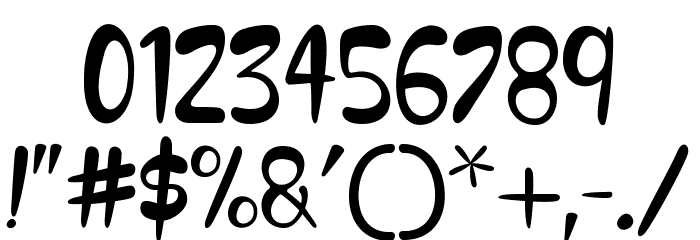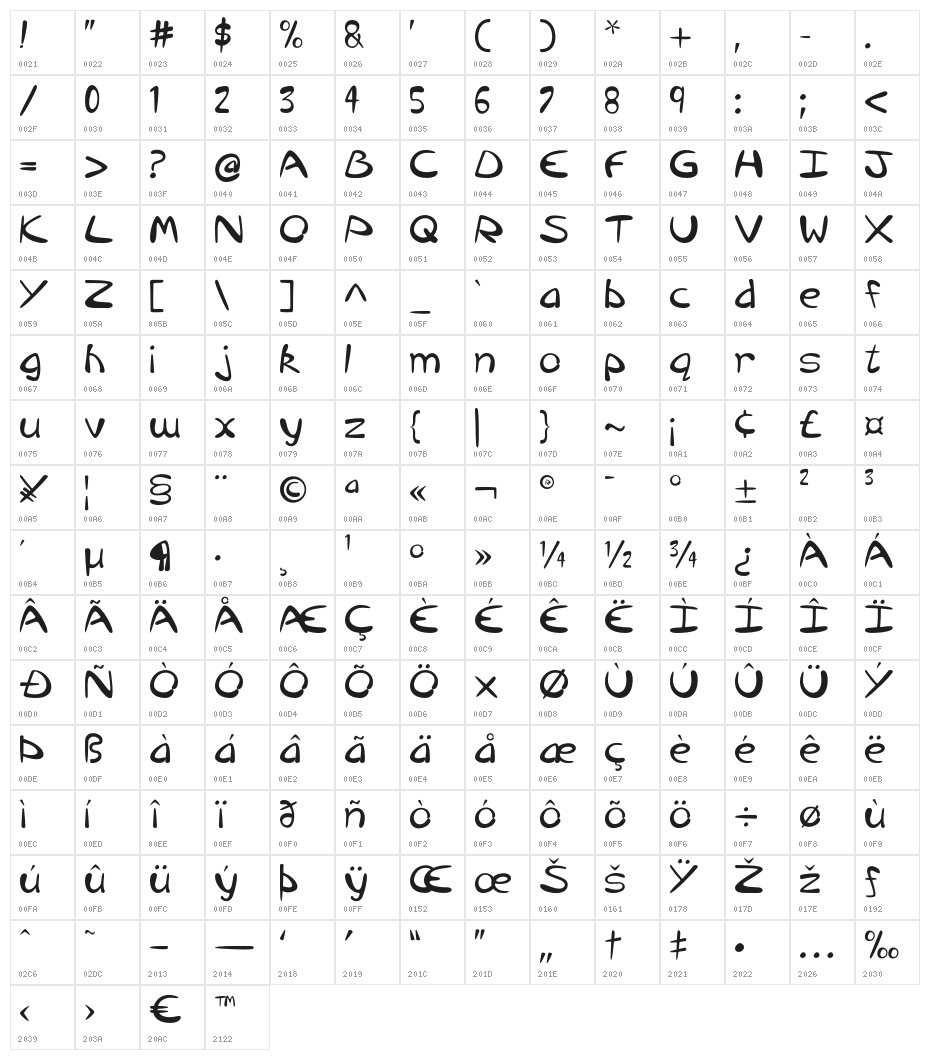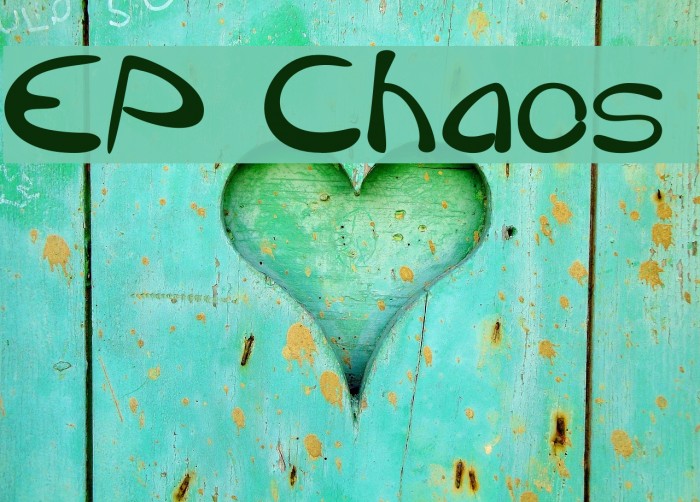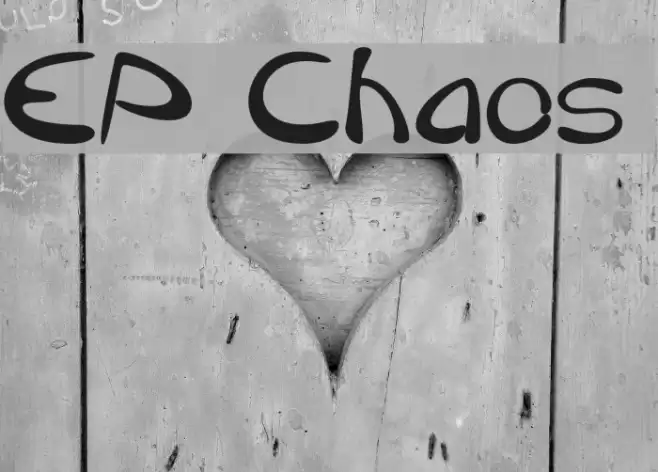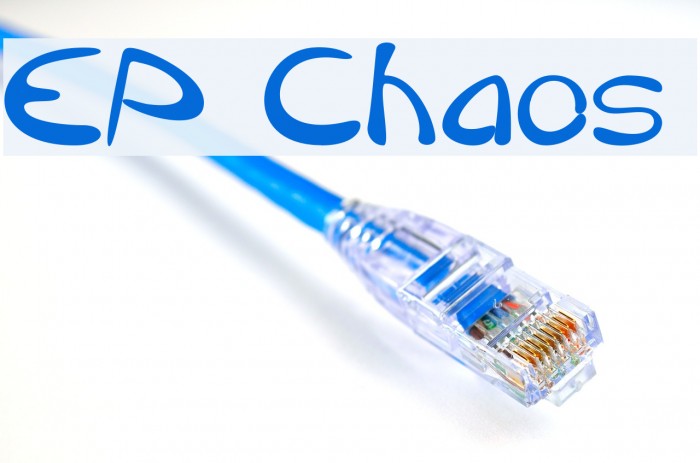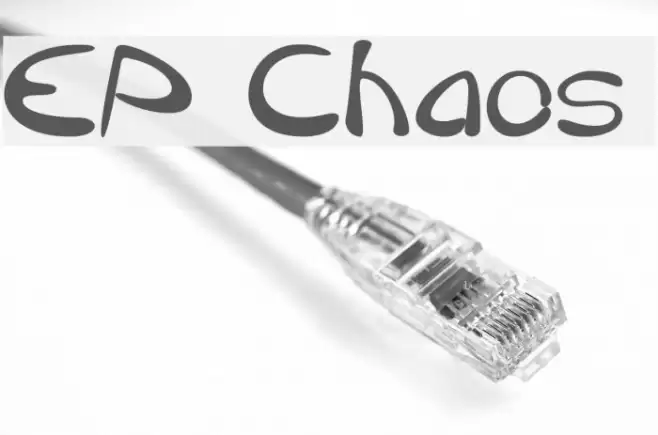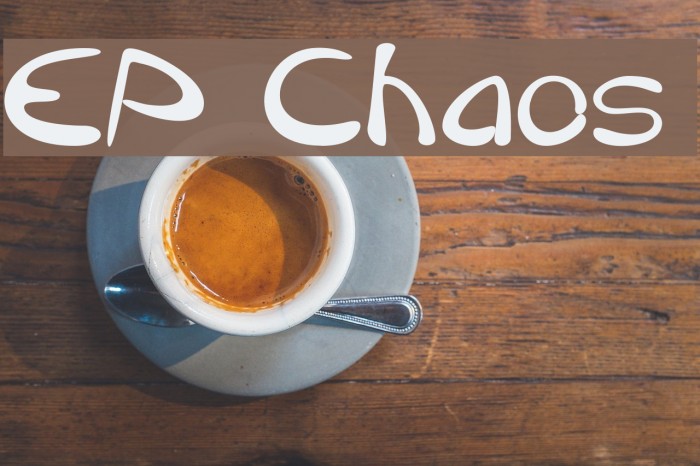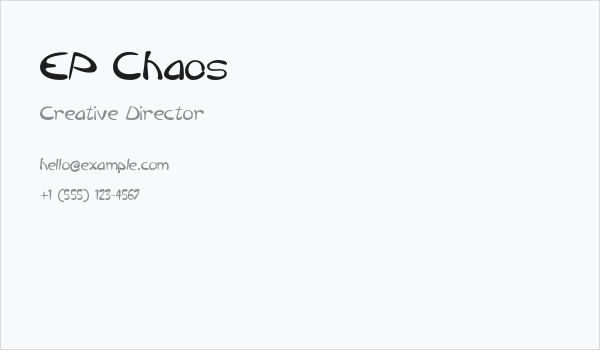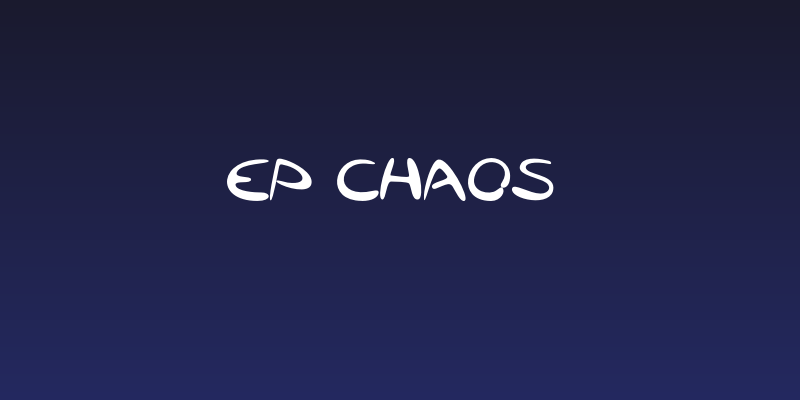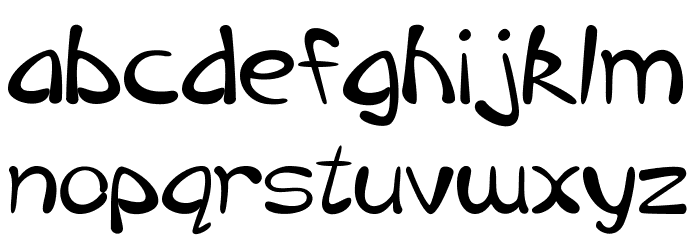
EP Chaos Font
EP Chaos Description
This playful and dynamic font features a whimsical, hand-drawn style with irregular curves and a lively appearance. The characters exhibit a sense of movement, with varying stroke thicknesses that add to its energetic feel. The uppercase letters are bold and slightly tilted, while the lowercase letters maintain a consistent, rounded form. Numbers and special characters follow the same playful design, making it suitable for creative and informal projects. The font's unique character shapes and lively style make it stand out, offering a sense of fun and creativity.
| Use Case | Logos, Posters, Invitations |
| Proposed Projects | Ideal for children's books, playful branding, creative posters, and informal invitations. |